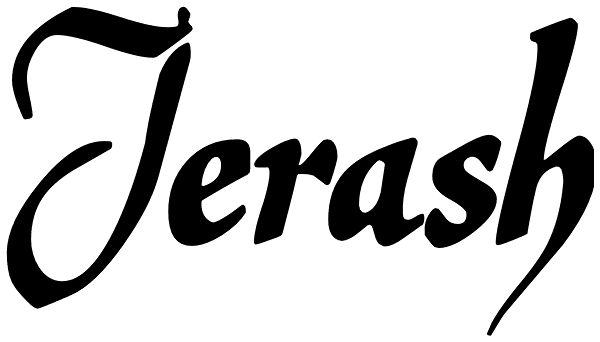
Jerash
Jerash was developed jointly by Dave Nalle and Mike Scarpitti. It draws on the look of several classic fonts from the 1920s and 30s which evoked the look of Middle-Eastern calligraphy. The synthesis is a font with style, strength and regularity...